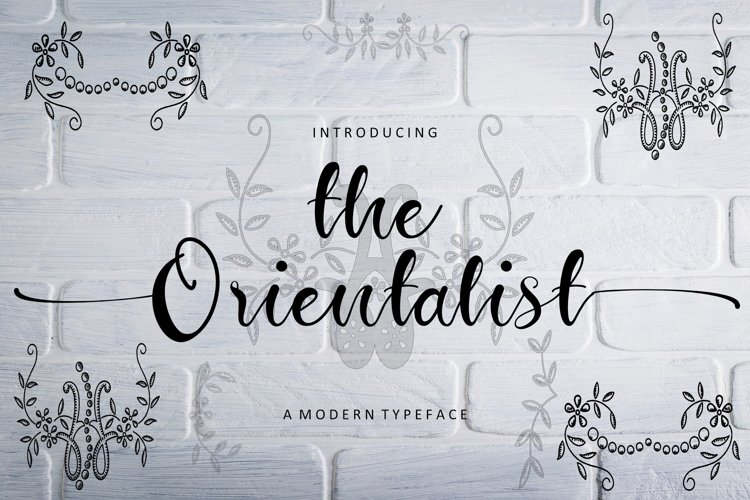
the Orientalist is a beautiful calligraphy and handwritten font. It is perfect for crafting, branding, invitations, stationery, wedding designs, social media posts, advertisements, product packaging, product designs, label, photography, watermark, special events and much more. This font is PUA encoded which means you can access all of the glyphs and swashes with ease!